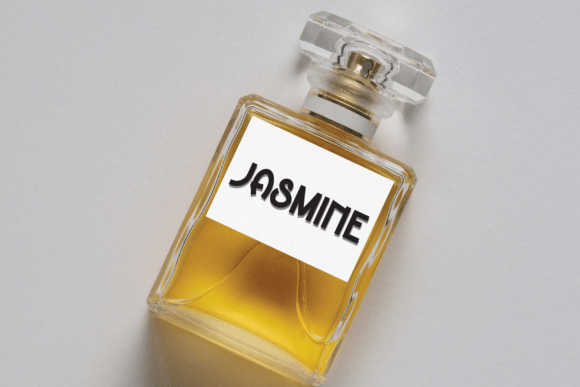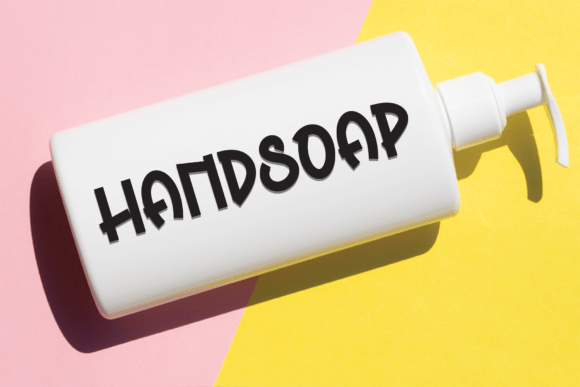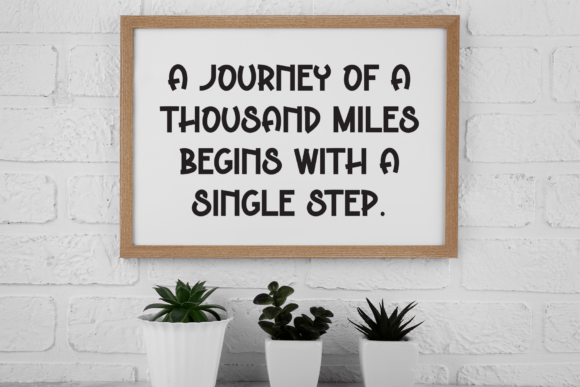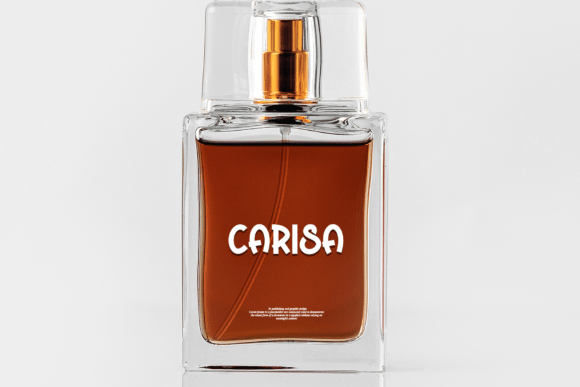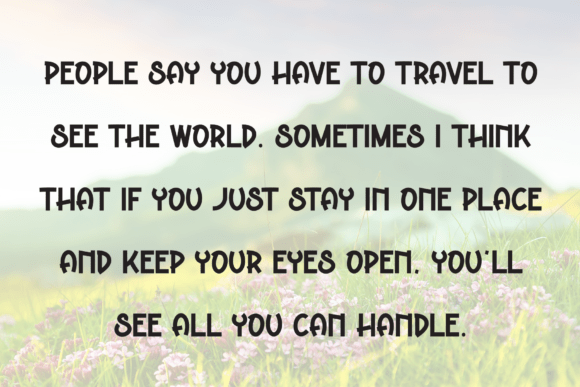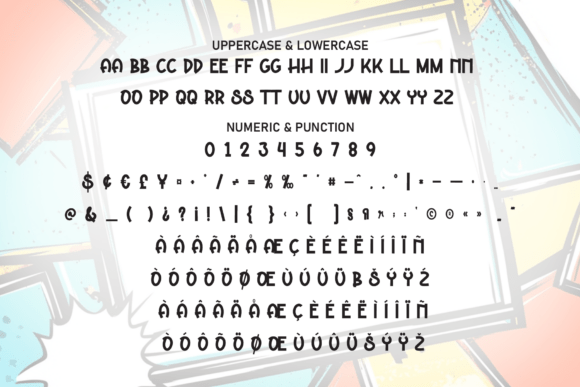
Introducing Comic Strip Font: The Perfect Blend of Modern Simplicity and Playful Charm
Are you tired of using the same old fonts for your design projects? Look no further! Comic Strip Font is here to revolutionize the way you approach typography. This casual display font is designed to bring a fresh and friendly touch to any project, making it perfect for designers and crafters alike. In this article, we’ll dive into the world of Comic Strip Font, exploring its features, benefits, and uses.
What is Comic Strip Font?
Comic Strip Font is a modern display font that combines simplicity with a playful, approachable vibe. Its clean shapes, soft edges, and well-balanced letterforms make it an ideal choice for a wide range of design projects. Whether you’re working on posters, branding, packaging, or social media graphics, this font is sure to capture the attention of your audience.
Key Features of Comic Strip Font
- Clean Shapes: Comic Strip Font features clean and simple shapes that are easy on the eyes. Its geometric design ensures that the font remains clear and legible, even at smaller sizes.
- Soft Edges: The soft edges of Comic Strip Font give it a friendly and approachable feel. This subtle detail adds a touch of warmth to your designs, making them more engaging and inviting.
- Well-Balanced Letterforms: The letterforms in Comic Strip Font are carefully crafted to ensure balance and harmony. Each letter is designed to work seamlessly with the others, creating a cohesive and visually appealing text.
Benefits of Using Comic Strip Font
So, why should you choose Comic Strip Font for your next design project? Here are just a few benefits of using this versatile font:
- Versatility: Comic Strip Font is incredibly versatile, making it suitable for a wide range of design projects. From posters and branding to packaging and social media graphics, this font can handle it all.
- Readability: Despite its playful nature, Comic Strip Font remains highly readable. Its clear shapes and well-balanced letterforms ensure that your text is easy to read, even at smaller sizes.
- Personality: Comic Strip Font has a unique personality that shines through in your designs. Its friendly and approachable vibe adds a touch of warmth and personality to your text, making it more engaging and memorable.
Uses of Comic Strip Font
So, what can you use Comic Strip Font for? The possibilities are endless! Here are a few ideas to get you started:
- Posters: Comic Strip Font is perfect for creating eye-catching posters that grab attention. Its bold and playful design ensures that your message is conveyed clearly and effectively.
- Branding: Use Comic Strip Font to create a unique and memorable brand identity. Its friendly and approachable vibe makes it perfect for businesses that want to connect with their audience on a personal level.
- Packaging: Add a touch of personality to your packaging with Comic Strip Font. Its clean and simple design ensures that your product stands out on store shelves.
- Social Media Graphics: Comic Strip Font is ideal for creating engaging social media graphics that capture attention. Its playful and approachable vibe makes it perfect for sharing updates, promotions, and more.
Tips for Using Comic Strip Font
Here are a few tips for getting the most out of Comic Strip Font:
- Experiment with Sizes: Comic Strip Font is highly versatile, so don’t be afraid to experiment with different sizes. Use it for headlines, subheadings, and body text to create visual interest and hierarchy.
- Pair it with Other Fonts: Comic Strip Font works well with a variety of other fonts. Try pairing it with a serif font for a classic look or a script font for a more playful vibe.
- Use it for Emphasis: Comic Strip Font is perfect for adding emphasis to your text. Use it for headings, titles, or key phrases to draw attention and create visual interest.